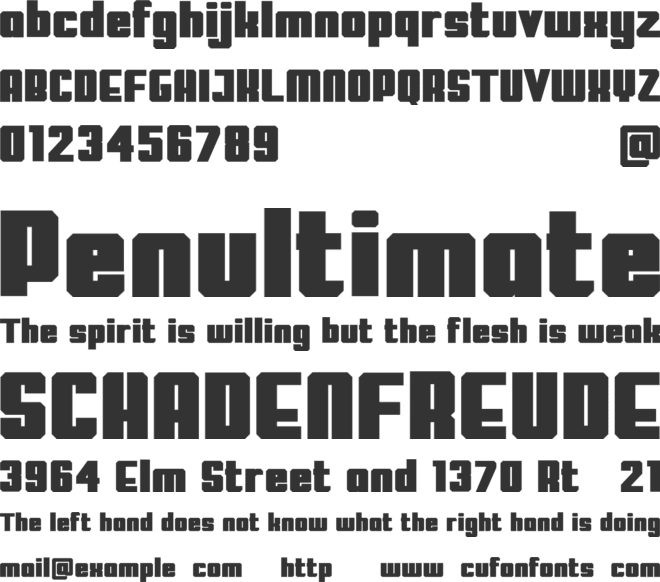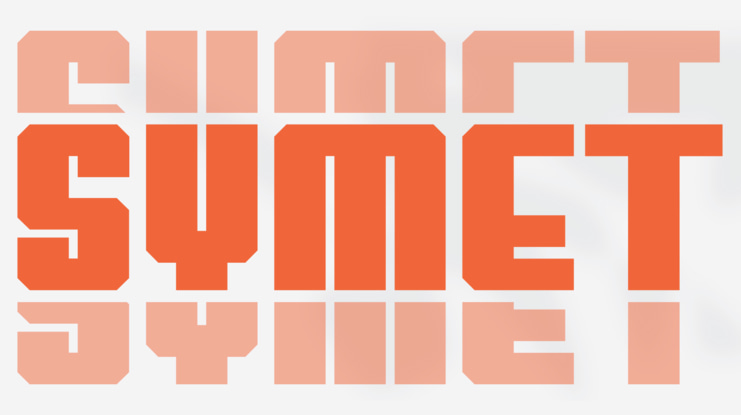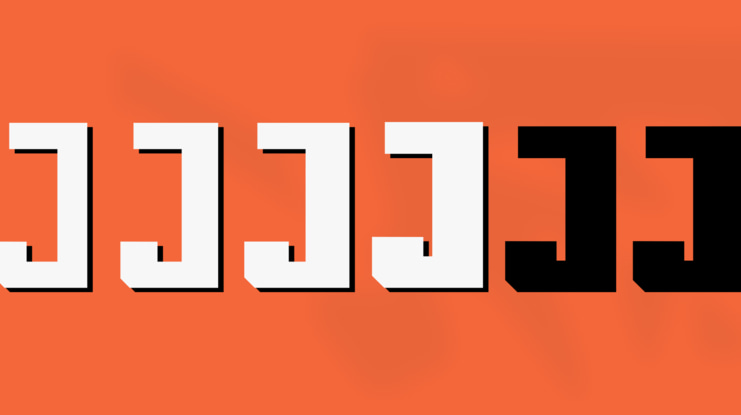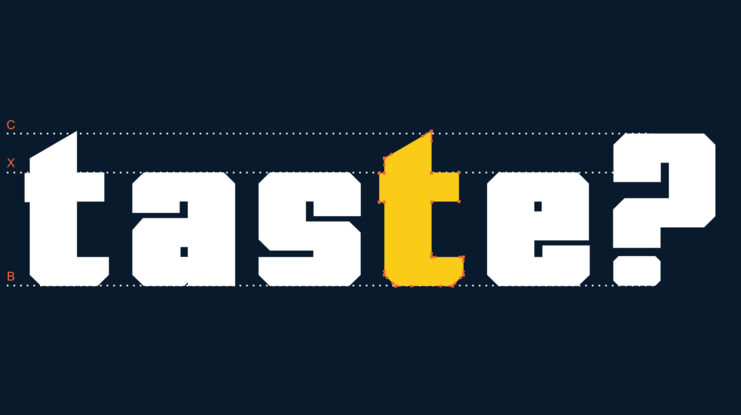
Symet is a bold geometric display typeface built on symmetry and strength. Its sharp cuts and solid strokes make it perfect for eye-catching headlines, logos, and experimental layouts. Turn your words into a striking visual statement with Symet.
Features:
All letterforms designed for impactful display use
Geometric construction with symmetrical proportions
Sharp, angular cuts balanced by wide, solid strokes
A bold weight that ensures maximum visibility
Multilingual support for extended versatility
Perfect for headlines, logos, and experimental layouts, Symet transforms ordinary text into a striking visual statement. This typeface isnβt just about readingβitβs about being seen.